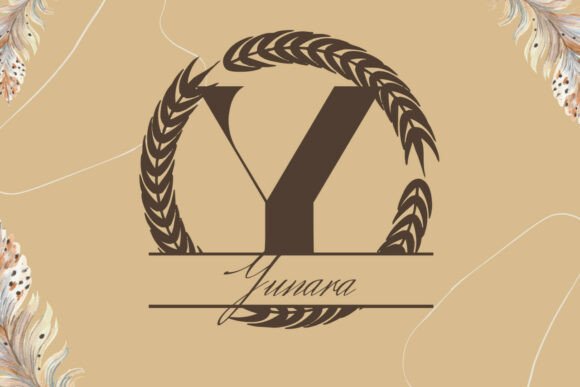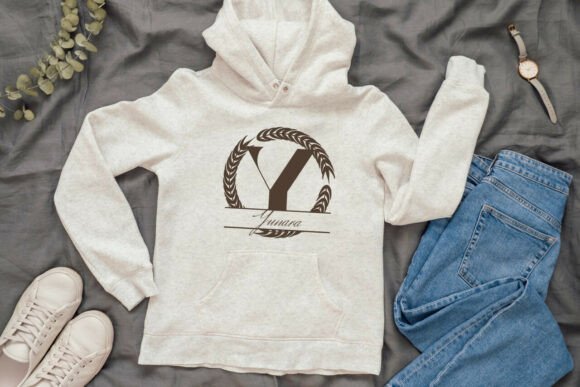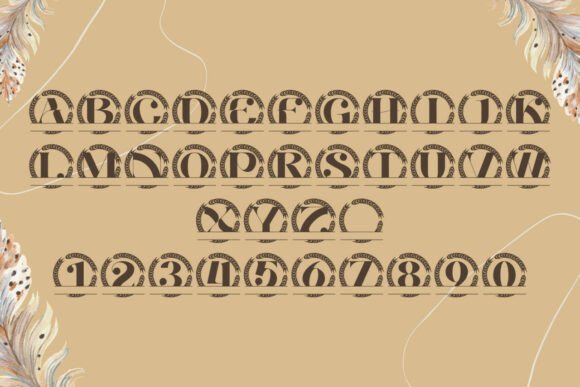
Meet Avinelle Split Monogram Font: Elevate Your Designs with Elegance
Are you looking for a font that can instantly transform initials into stunning nameplates? Look no further than the Avinelle Split Monogram Font. This beautiful font is designed to bring a touch of elegance and sophistication to your designs, making it perfect for a wide range of projects, from wedding gifts and family signs to door hangers, tumblers, ornaments, and boutique packaging.
The Characteristics of Avinelle Split Monogram Font
One of the standout features of Avinelle Split Monogram Font is its poised and clean letterforms. The font boasts a crisp center split that leaves room for names, dates, or short words, ensuring that your designs look polished and refined with minimal effort. The spacing of the font remains balanced, even when customized, which means you can achieve professional-looking results without spending hours tweaking the design.
Avinelle Split Monogram Font is incredibly versatile, making it suitable for a variety of applications. Whether you’re creating wedding gifts, personalized signs, or customized packaging, this font pairs beautifully with simple sans or light script fonts, ensuring that your layouts remain readable and refined. The font’s clarity and proportions allow designs to scale seamlessly from large wall art to tiny tags, making it perfect for projects of all sizes.
Perfect for Cutting Machines and Design Software
Avinelle Split Monogram Font is designed to work perfectly with popular cutting machines and design software, including Cricut, Glowforge, lasers, and vinyl projects. The font’s compatibility with these tools makes it easy to create stunning designs, from intricate paper cutouts to elaborate signage. Additionally, the font is easy to install and use with popular design software like Canva, Photoshop, and Illustrator, allowing you to get started right away.
Ideas for Using Avinelle Split Monogram Font
So, how can you use Avinelle Split Monogram Font to elevate your designs? Here are a few ideas to get you started:
- Wedding Gifts: Create personalized wedding gifts, such as monogrammed towels, blankets, or picture frames, that will be cherished for years to come.
- Family Signs: Design beautiful family signs that showcase your family’s name and add a touch of warmth to your home.
- Door Hangers: Create customized door hangers that reflect your personality or style, perfect for your front door or as a gift.
- Tumblers and Ornaments: Design stunning tumblers and ornaments that make thoughtful gifts or personalized keepsakes.
- Boutique Packaging: Elevate your boutique packaging with custom monogrammed labels or tags that add a touch of elegance to your products.
Tips for Getting the Most Out of Avinelle Split Monogram Font
To get the most out of Avinelle Split Monogram Font, here are a few tips:
- Experiment with Different Combinations: Try pairing Avinelle Split Monogram Font with different fonts and design elements to create unique and eye-catching designs.
- Play with Size and Scale: Don’t be afraid to experiment with different sizes and scales to see how the font looks in different contexts.
Avinelle Split Monogram Font is a beautiful and versatile font that can elevate your designs with ease. Its poised and clean letterforms, crisp center split, and balanced spacing make it perfect for a wide range of projects, from wedding gifts and family signs to door hangers, tumblers, ornaments, and boutique packaging. With its compatibility with popular cutting machines and design software, you can easily create stunning designs that will leave a lasting impression. So why wait? Download Avinelle Split Monogram Font today and start creating elegant nameplates that will take your designs to the next level.